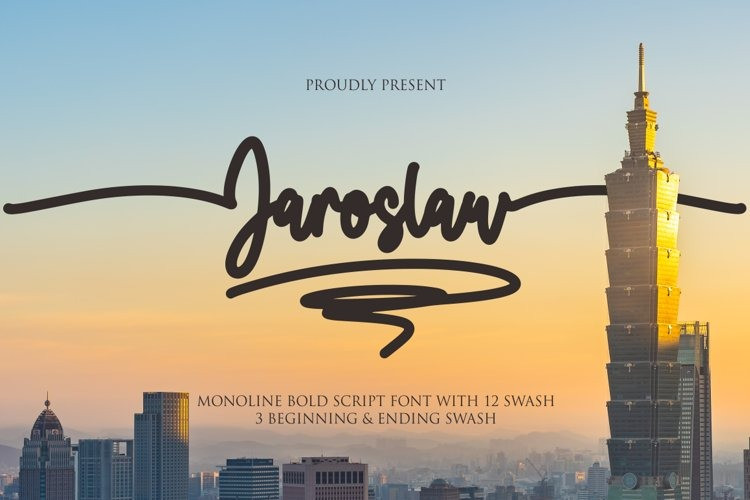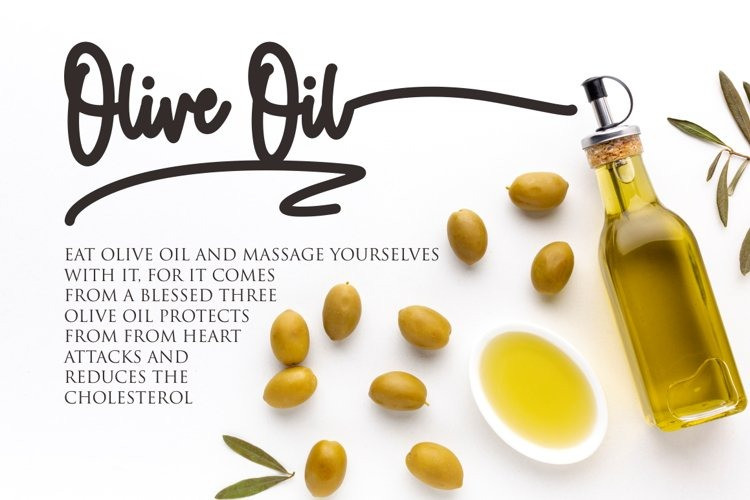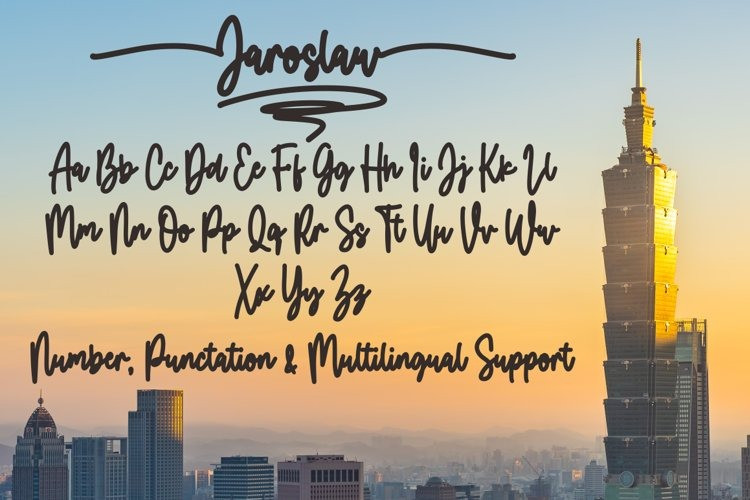
Jaroslaw Script Font
Jaroslaw a monoline bold script font is a unique script font with many swash. It features swash characters that will take your projects to the next level!
This font is PUA code which means you can easily access all the glyphs and swashes that are full of unique! It also features many special features including glyphs. font designs that are made for various vector designs, printing such as digital wedding blogs, online shops, social media, while printing can be used in the field of product clothing, accessories, bags, pins, logos, business cards, watermarks and many others …
so it can make your product look cute and attractive, and also Multilingual support!!!